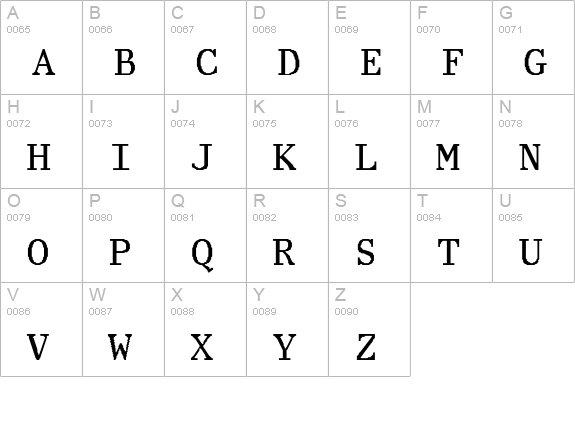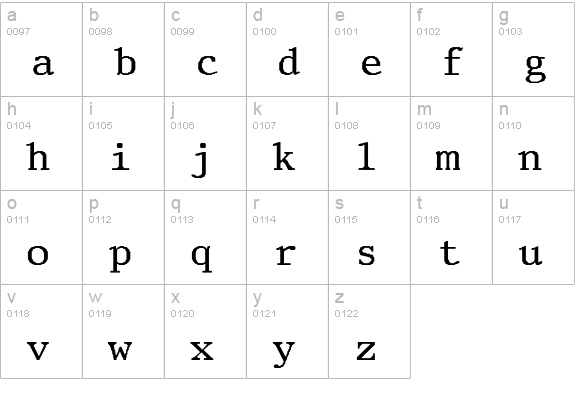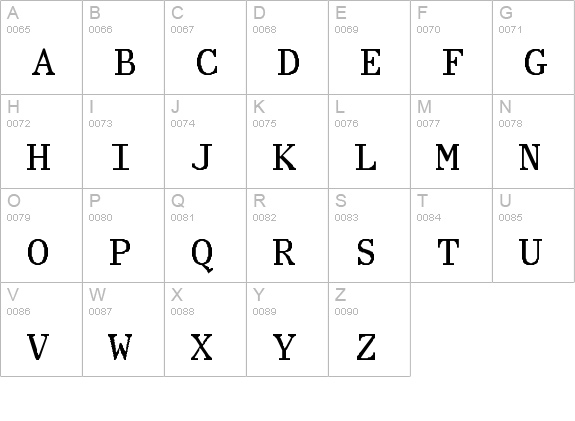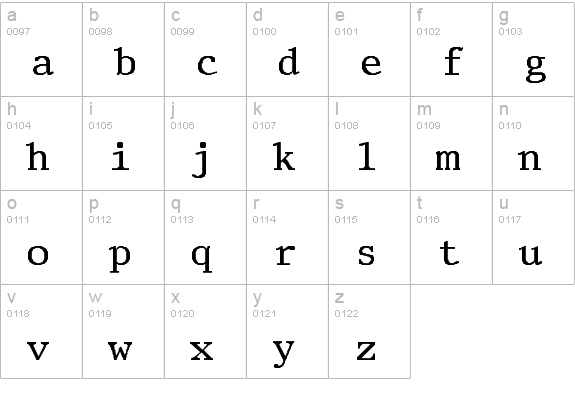
PrestigeEliteBold-Bold Font Details
PrestigeEliteBold-Bold is a strong, high-contrast variant in the PrestigeEliteBold typeface family \xE2\x80\x94 well suited to headlines, attention-grabbing titles, and strong calls-to-action.
PrestigeEliteBold-Bold is a visually striking font that exudes confidence and elegance. Its bold and commanding presence demands attention and makes it the perfect choice for headlines, titles, and branding projects. With its strong and defined letterforms, PrestigeEliteBold-Bold instantly captures the eye and leaves a lasting impression. This font is freely available for download at FontsMarket.com, allowing designers and creatives to easily access and incorporate this impressive typeface into their projects. Its versatility and boldness make it suitable for a wide range of design applications, from print materials to digital platforms. Whether used for designing eye-catching posters, creating impactful logos, or developing captivating website headers, PrestigeEliteBold-Bold effortlessly adds a touch of sophistication and professionalism to any design. Its clean lines and balanced proportions create a seamless reading experience while making a bold statement. The carefully crafted letterforms of PrestigeEliteBold-Bold ensure legibility even at smaller sizes, making it an excellent choice for body text as well. Its bold weight adds emphasis and emphasis to important information, guiding the reader's attention to the key messages. With PrestigeEliteBold-Bold, designers have the freedom to create visually stunning designs that leave a lasting impact. Its freely available download on FontsMarket.com makes it easily accessible to designers and enthusiasts alike, allowing them to explore the endless possibilities this font offers. In conclusion, PrestigeEliteBold-Bold is a powerful and striking font that combines elegance with boldness. Its freely available download at FontsMarket.com ensures that designers can easily incorporate this exceptional typeface into their projects, adding a touch of class and sophistication. With its versatility and striking presence, PrestigeEliteBold-Bold is a must-have font for any designer looking to make a bold statement.